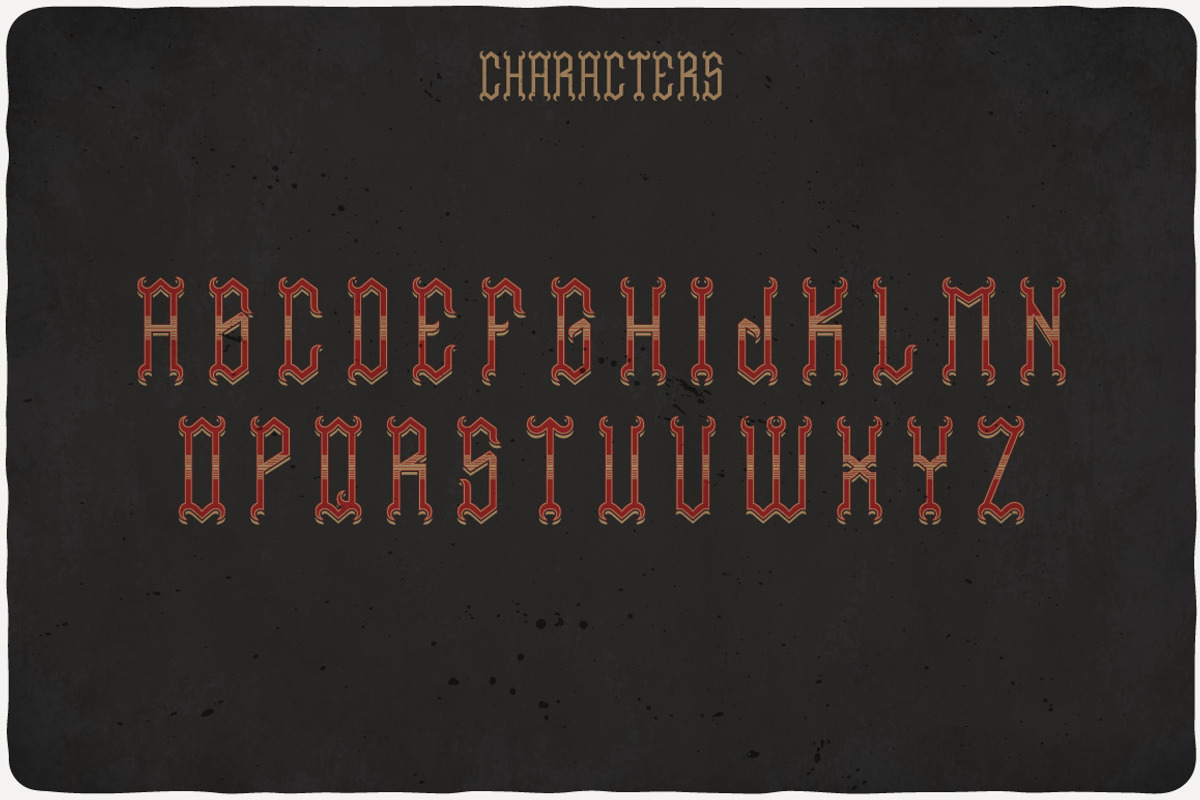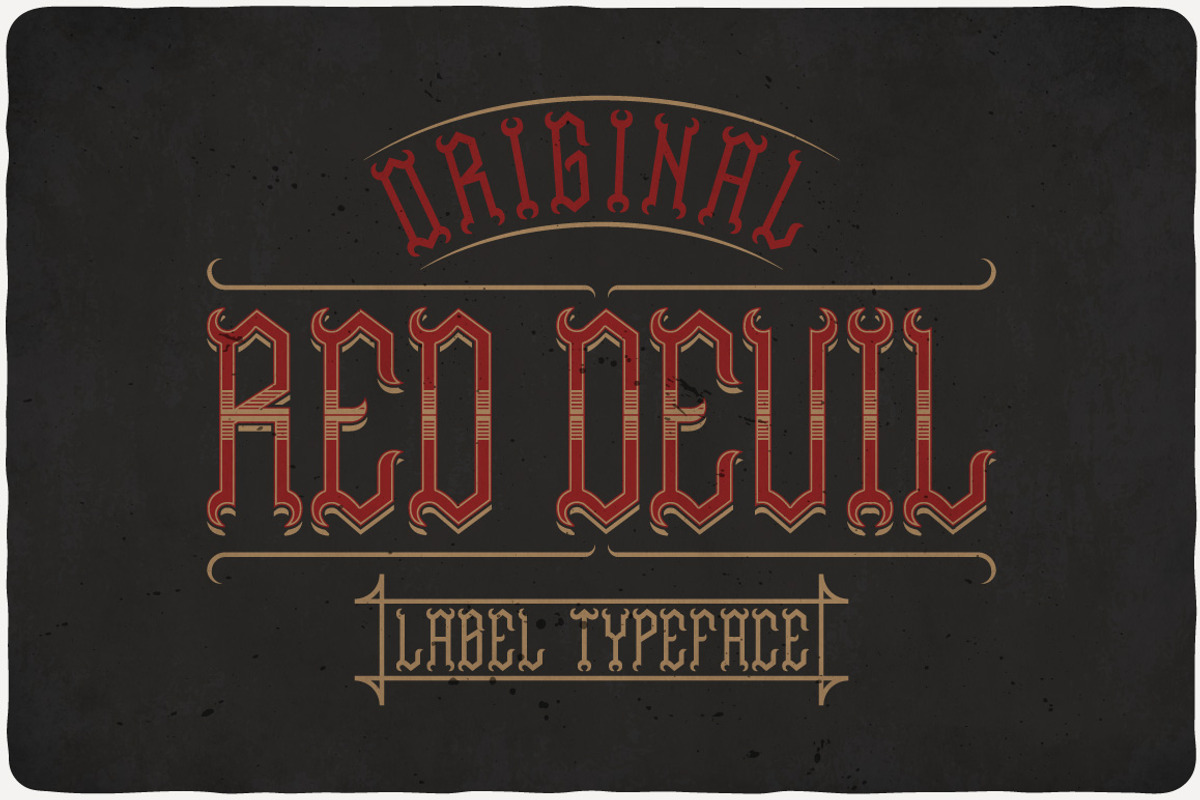
Red Devil Typeface
Introducing a original look label typeface named "Bones". It's made in scary and Halloween style :) Typeface is good viewed on any your design.
- Red Devil Regular
- Red Devil Aged
- Red Devil Shadow
- Red Devil Texture
- Red Devil Texture And Shadow
Red Devil Typeface by VozzyStock fits naturally into Branding, posters, packaging, typography.